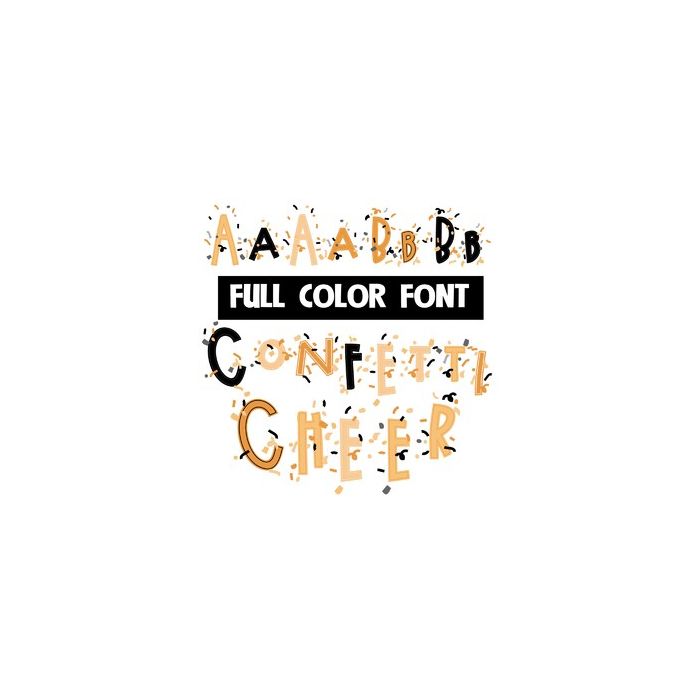
This full-color font features a whimsical font and lots of confetti. There is an alt upper and lowercase with additional colors that you can access through Silhouette's glyph map.